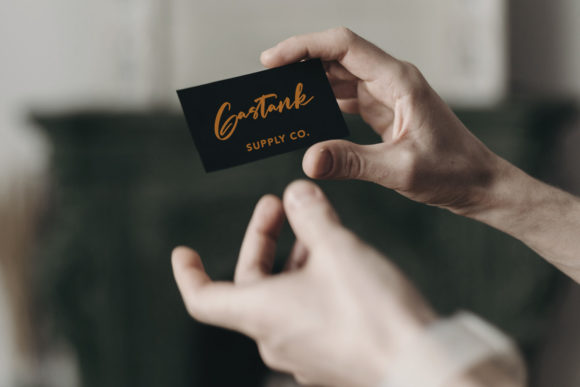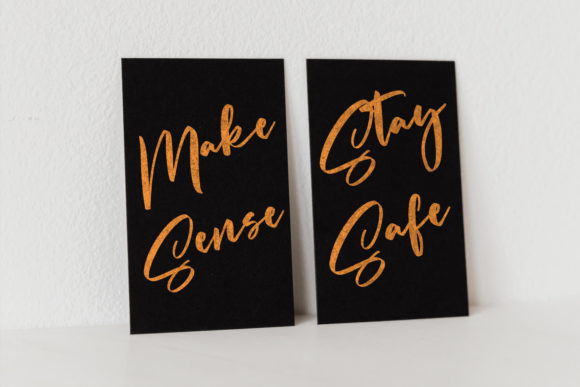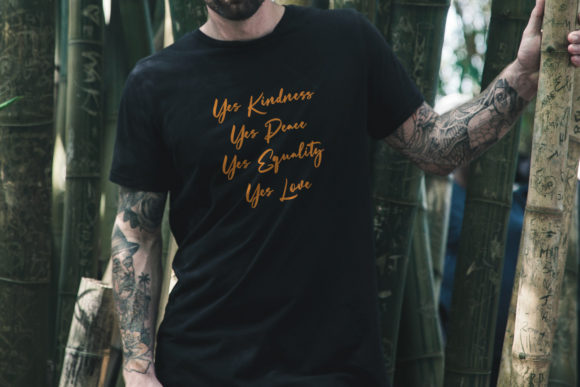
The Elegance of Gastank Font: A Designer’s Delight
I’ll never forget the time I was working on a wedding invitation project, and my client asked for a font that was ” elegant, yet playful, and not too formal.” I scoured the internet, tried out countless fonts, but nothing seemed to fit the bill. That was until I stumbled upon Gastank Font. ✨
This cursive and elegant handwritten font has been a game-changer for my designs. From wedding invitations to thank you cards, logos, and greeting cards, Gastank Font adds a touch of sophistication and whimsy to any project.
An Honest Review of Gastank Font
- ✨ Elegant and cursive, perfect for adding a touch of sophistication to designs
- 💕 Beautifully crafted, with a unique and charming personality
- 🎨 Versatile, suitable for a wide range of design projects
While Gastank Font is an excellent choice for many designs, there are a few things to keep in mind: 🤔
- ⚠️ Limited availability of stylistic alternates, which may limit its use in certain projects
- ⚠️ May not be the best choice for body text, as it’s more suited for headings and titles
A Practical Guide to Using Gastank Font
The Story Behind Gastank Font
Gastank Font was designed with the intention of creating a beautiful, elegant, and highly legible handwritten font. The designer, inspired by classic calligraphy and elegant typography, crafted Gastank Font to be a versatile and sophisticated choice for designers.
Q: What type of designs is Gastank Font best suited for?
A: Gastank Font is perfect for designs that require a touch of elegance and sophistication, such as wedding invitations, thank you cards, logos, and greeting cards.
Q: Can I use Gastank Font in my digital designs?
A: Yes, Gastank Font can be used in digital designs, such as website headers, social media graphics, and digital invitations.